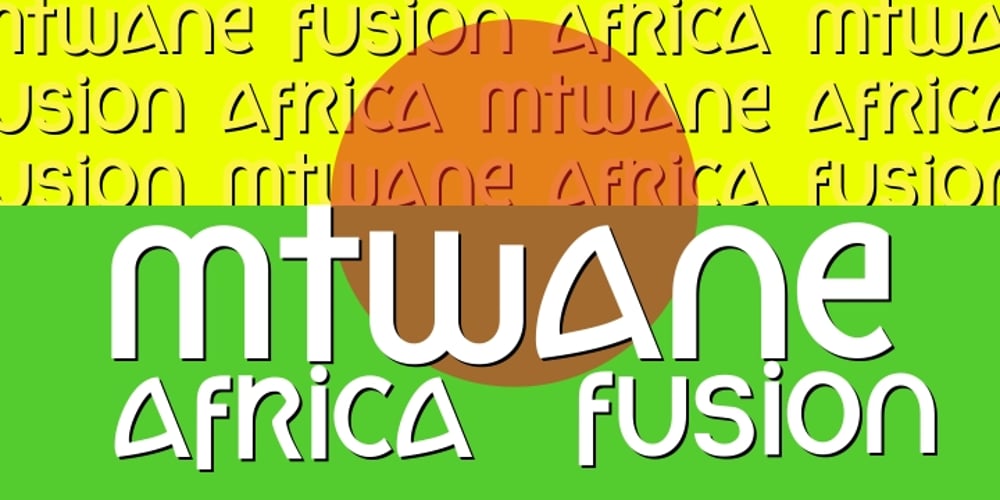
Mtwane
Mtwane font
Mtwane Font Family was designed by Anton Scholtz and published by Scholtz Fonts. Mtwane contains 1 styles and family package options. Mtwane is a contemporary font, fusing the vigor of African design with the clean-lined sophistication of the European fonts popular at the turn of the 20th century. In the wake of African Renaissance, European and African cultures are counter-influenced, resulting in an exciting fusion of the two. Mtwane plays on the line between upper and lower case characters, creating a young, powerful, in-your-face effect. Use Mtwane for clear, powerful impact in contemporary design. Mtwane contains over 250 characters – (upper and lower case characters, punctuation, numerals, symbols and accented characters are present). It has all the accented characters used in the major European languages.